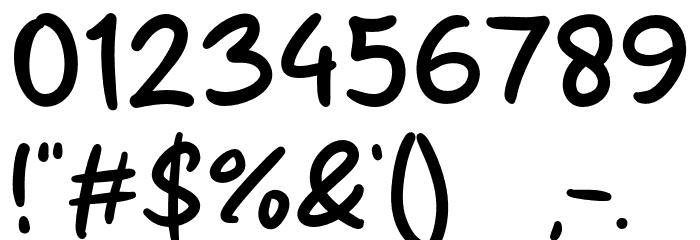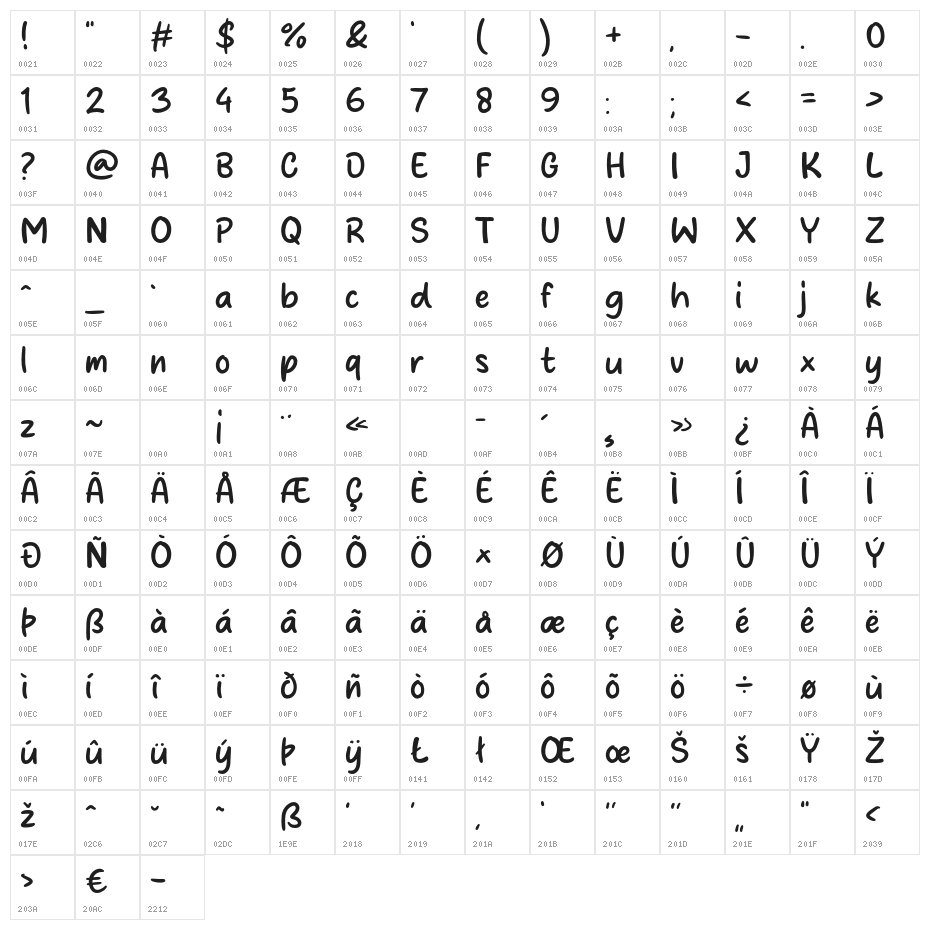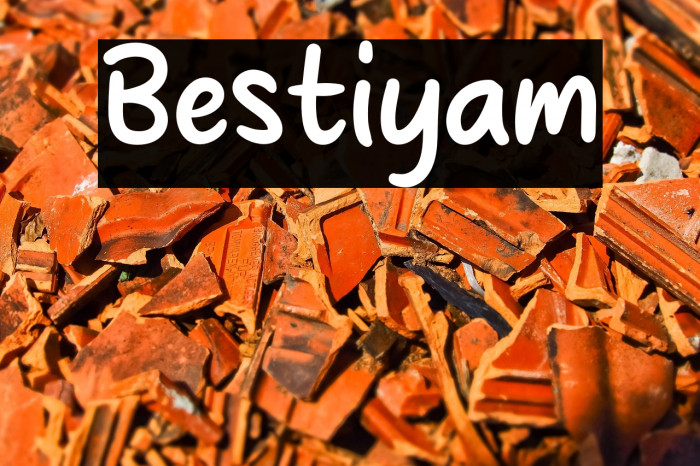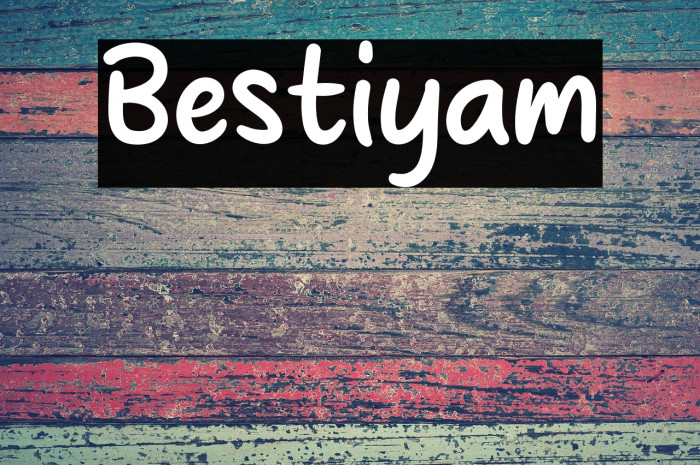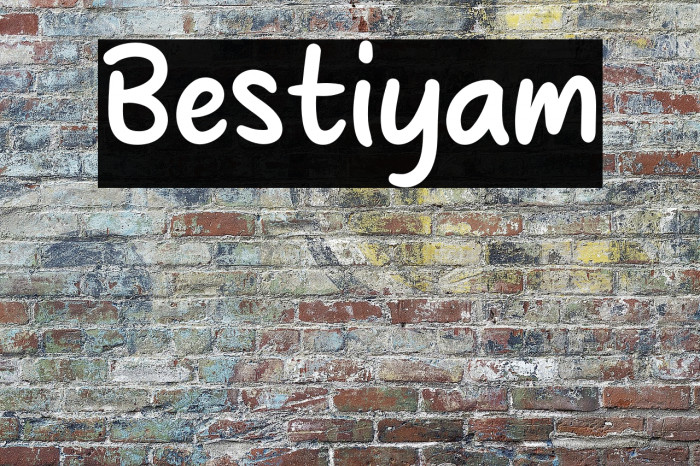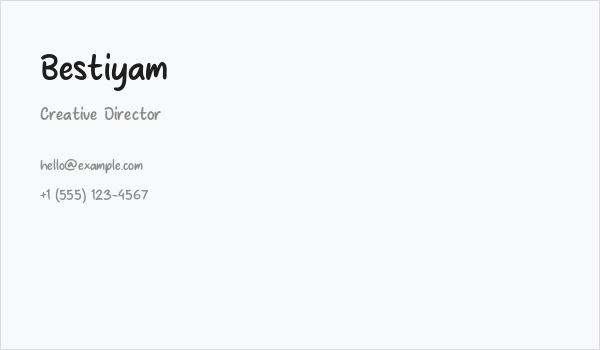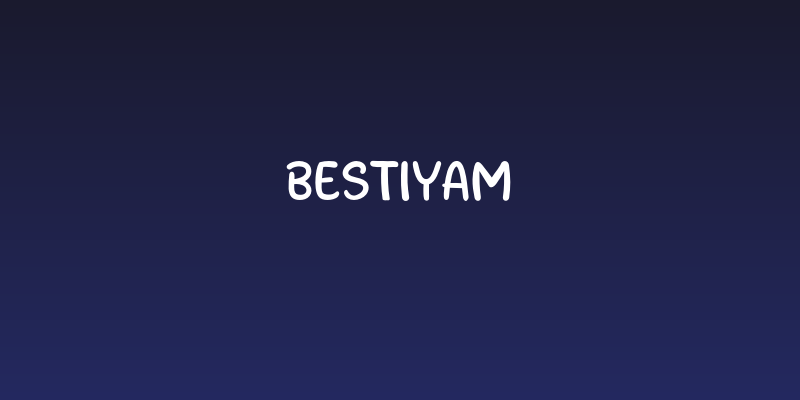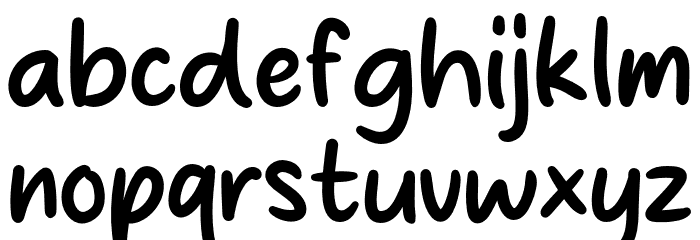
Bestiyam Font
Bestiyam Description
This font exhibits a playful and casual handwritten style, characterized by its rounded and smooth letterforms. The strokes are consistent and slightly bold, giving it a friendly and approachable appearance. The letters are well-spaced, ensuring readability while maintaining a lively and informal tone. The numerals and special characters follow the same design ethos, integrating seamlessly with the alphabet. This font is ideal for projects that require a personal touch or a relaxed vibe, such as invitations, greeting cards, or children's books.
| Overall Style | Casual, Playful |
| Use Case | Headlines, Informal text, Creative projects |
| Proposed Projects | Ideal for invitations, greeting cards, children's books, or casual branding. |